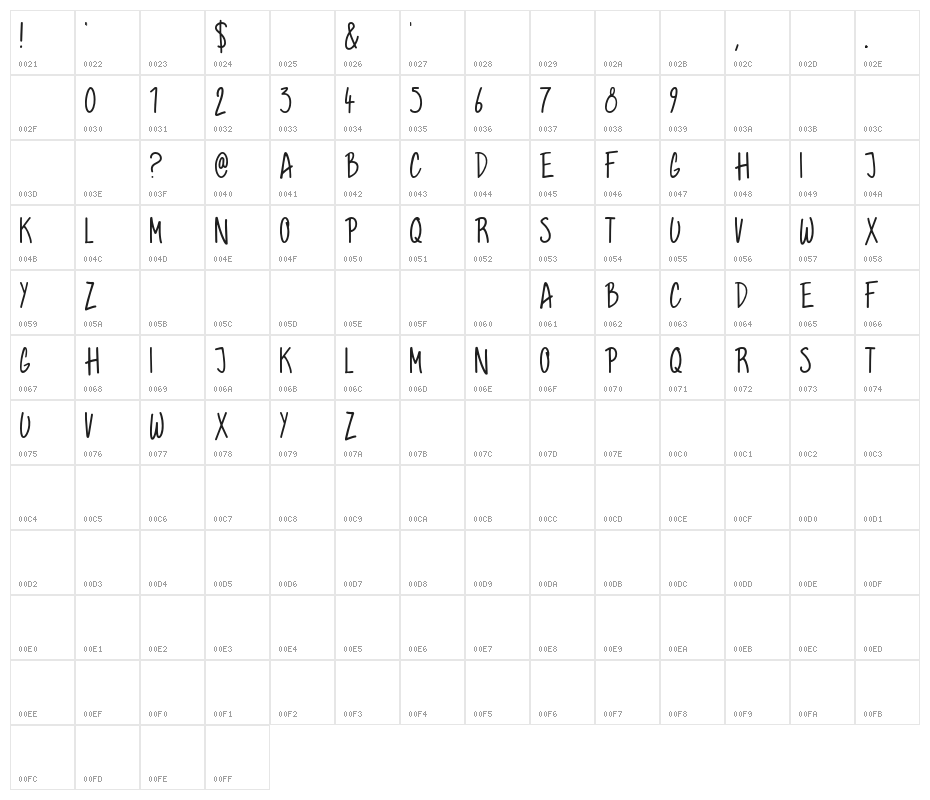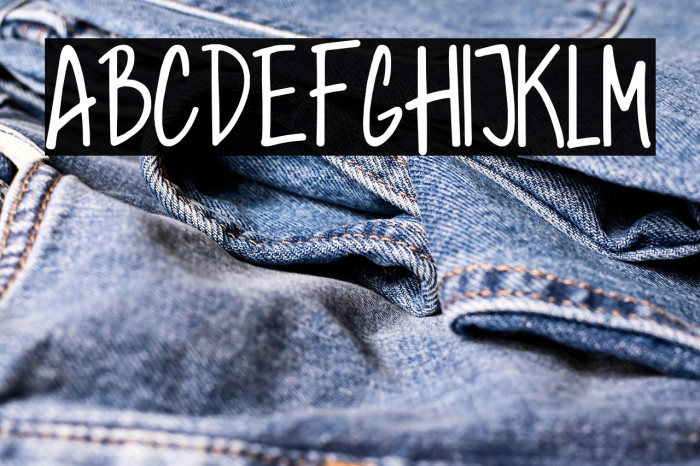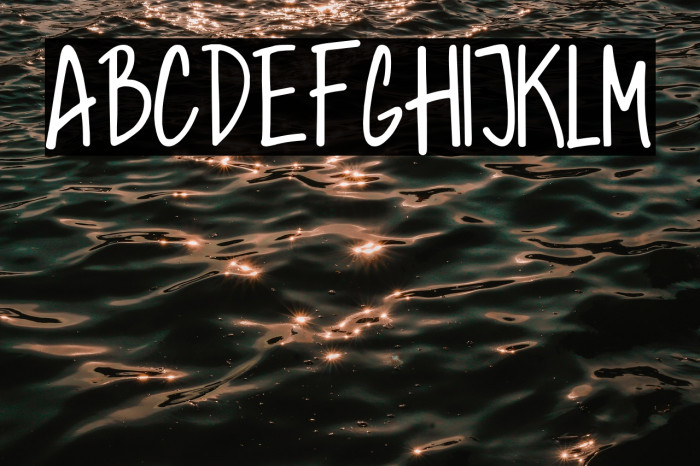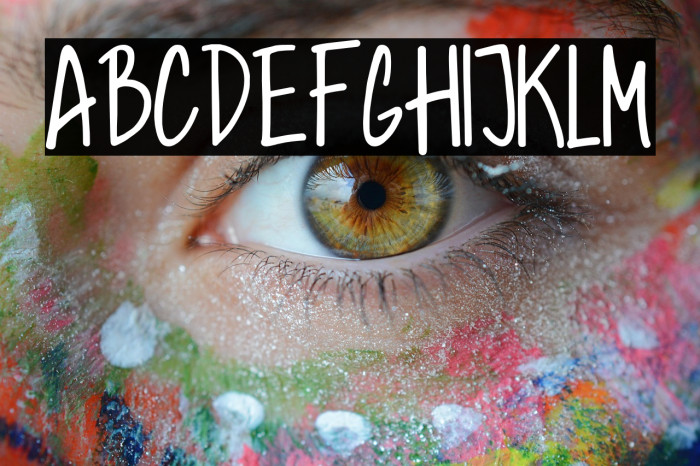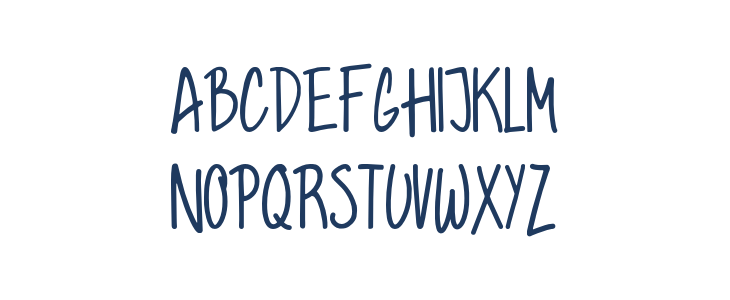
GrahamHand Font
GrahamHand Description
This font features a playful and casual handwritten style, characterized by its smooth, flowing lines and slightly irregular shapes. The letters have a consistent stroke width, giving it a uniform appearance while maintaining a relaxed and informal vibe. The uppercase and lowercase letters are well-proportioned, with a slight slant that adds to its dynamic feel. The numerals and special characters are designed to match the overall aesthetic, making it versatile for various uses. Its legibility and charm make it suitable for creative projects.
| Overall Style | Casual |
| Use Case | Headlines, Logos, Social media graphics |
| Proposed Projects | Ideal for greeting cards, invitations, personal branding, and social media graphics. |